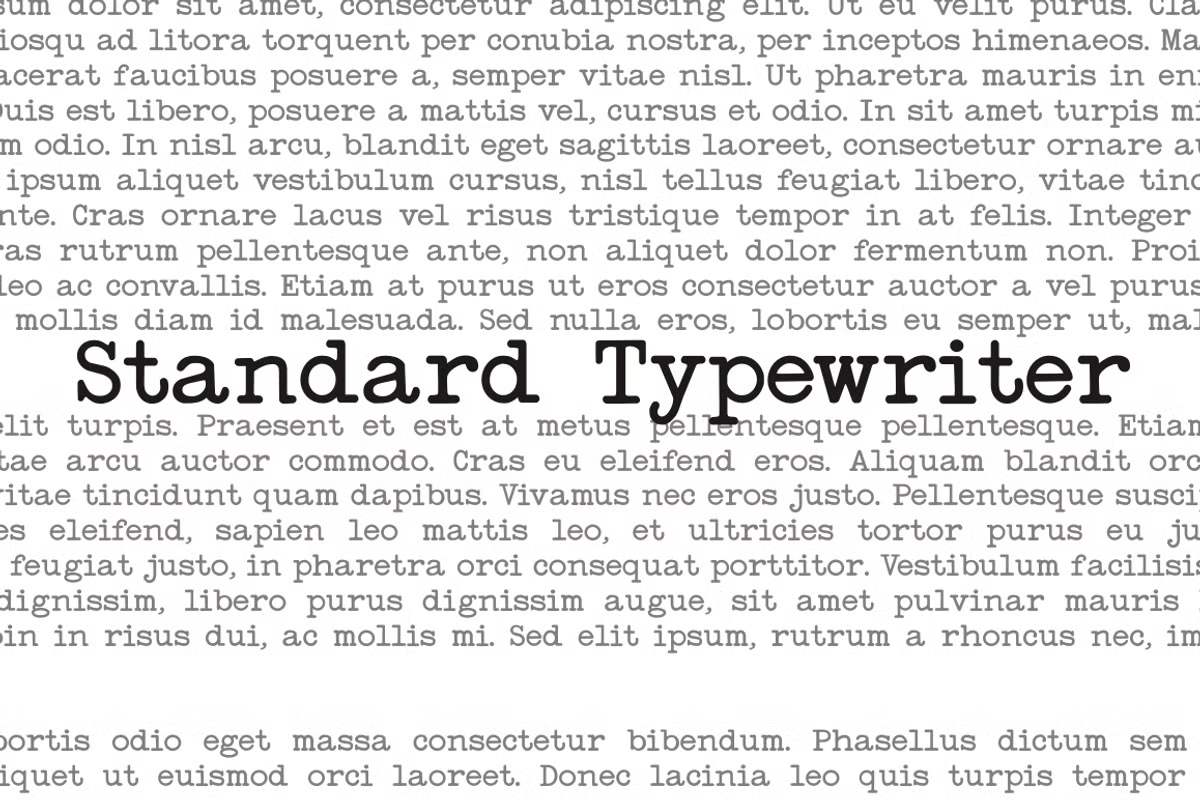
Standard Typewriter
About Standard Typewriter
A typewriter font design, great for mimicking the effect of type writing older machines. Family Language Supports: Albanian, Danish, Dutch, English, Estonian, Faroese, French, German, Icelandic, Italian, Malagasy, Norwegian, Portuguese, Spanish, Swedish.…